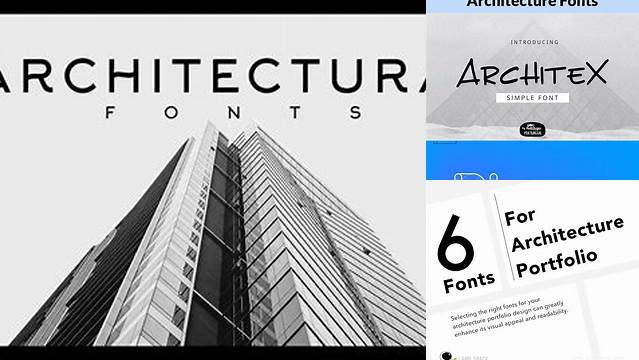
Best Architecture Fonts For Stunning Portfolios
Hey there, design enthusiasts! Let's dive into the fascinating world of architecture fonts for portfolio! Whether you're an aspiring architect, a seasoned professional, or a design student, the fonts you choose for your portfolio can make a huge difference. They're not just about readability; they're about conveying your style, your vision, and your attention to detail. Think of your portfolio as a digital or physical gallery of your work, and the typography as the frame that complements and enhances your masterpieces. This guide will walk you through the best fonts to use, how to use them effectively, and some cool tips to make your portfolio pop. So, grab your favorite coffee, and let's get started on building a portfolio that truly stands out!
H2: Understanding the Importance of Typography in Architectural Portfolios
Alright, guys, let's talk about why typography is so darn crucial in your architectural portfolio. You've poured your heart and soul into designing incredible buildings, right? You've spent countless hours sketching, modeling, and refining your concepts. But all that hard work can be undermined if your portfolio presentation is clunky or confusing. That's where typography swoops in to save the day! Firstly, architecture fonts for portfolio directly impacts readability. Imagine trying to decipher tiny, illegible text – ugh, it's a nightmare! Clear and legible fonts make it easy for potential clients or employers to understand your project descriptions, technical specifications, and any other accompanying text. Nobody wants to squint, zoom in, or give up before they even get the full picture of your work. Secondly, font choices reflect your personality and design sensibility. A clean, modern sans-serif font can convey a sense of professionalism and innovation, perfect for contemporary designs. Conversely, a classic serif font might be ideal for projects rooted in traditional architecture. Your font selection is a subtle yet powerful way to express your design philosophy and set the tone for your entire portfolio. Think of it like this: your font is the voice of your design. Is it bold and confident? Minimalist and understated? Playful and experimental? The font you choose will shape how your audience perceives your work. Furthermore, architecture fonts for portfolio help to create visual hierarchy. Using different font sizes, weights, and styles is a super effective way to guide the reader's eye. You can use larger, bolder fonts for headings and project titles to draw attention to the most important information. Subheadings can be smaller but still prominent, and body text can be a standard size for easy reading. This visual organization helps your audience navigate your portfolio and understand the relationships between different elements. It's like creating a roadmap for your design. Ultimately, the right typography elevates your portfolio from good to exceptional. It shows that you pay attention to every detail, from the grand design scheme down to the smallest font choice. It demonstrates your professionalism, your creativity, and your ability to communicate your ideas effectively. So, don't underestimate the power of good typography – it's a game-changer!
H3: The Impact of Font Choice on First Impressions
Okay, so you've got your amazing architectural designs ready to go. Now, let's consider the power of first impressions, and how architecture fonts for portfolio plays a vital role in shaping them. Your portfolio is often the first point of contact between you and potential clients, employers, or collaborators. Within seconds, they'll start forming judgments based on what they see. The font you choose is one of the first things they'll encounter, subtly influencing their initial perception of your work and your overall approach to design. If you opt for a font that's difficult to read, cluttered, or simply doesn't fit with your style, you risk creating a negative first impression. It can signal that you don't pay attention to detail, or that you're not familiar with basic design principles. This can turn off potential clients even before they've had a chance to fully appreciate your work. On the other hand, if you choose a font that is well-suited to your projects, easy to read, and visually appealing, you're already off to a fantastic start. A clean, modern sans-serif font, for instance, can project a sense of professionalism and forward-thinking design, while a classic serif font can add a touch of elegance and expertise. These font choices subtly communicate your personality and your design preferences. Moreover, architecture fonts for portfolio creates a sense of cohesiveness and professionalism. When your typography is consistent throughout your portfolio, it shows that you've considered every element. This attention to detail reflects positively on your ability to design and execute architectural projects. Consistency is important because it reinforces your brand and your individual style, making your portfolio more memorable. It is also very important to take into consideration the context of each architecture project you display. If you're showcasing contemporary designs, consider using a sleek and minimalistic font. This choice will complement the overall aesthetics of your projects. For projects that have a more traditional or classical feel, a serif font might be more appropriate. This approach helps to create a unified and pleasing visual experience. The font you pick should align with the style of your projects. In a nutshell, the typography you use will affect a visitor's first impression of your portfolio. It influences their perception of your brand, your professionalism, and your design sensibilities. This makes the decision of which architecture fonts for portfolio to use, critical to your success.
H2: Essential Font Types for Architectural Portfolios
Let's get down to the nitty-gritty and explore the different font types that are perfect for your architectural portfolio! Knowing the strengths of each font category will help you make informed choices and create a portfolio that reflects your design style. We'll cover the most common and useful font families for architects – each with its own personality and flair. We'll also talk about how you should use each of them in different design situations. This will help you achieve the best results with your architecture fonts for portfolio.
H3: Serif Fonts: Classic Elegance and Authority
If you're aiming for a sophisticated and timeless look, serif fonts are your go-to choice. Architecture fonts for portfolio in this category have small strokes, or serifs, at the ends of each letter. Think of them as tiny decorative feet. These fonts bring a sense of tradition, refinement, and credibility to your portfolio. They're excellent for project descriptions, body text, and any copy where you want to create a sense of formality. Common examples include Times New Roman, Garamond, and Georgia. These fonts have been used for centuries and are well-respected. Their elegance and authority are a great asset when you want to communicate professionalism and experience. Serif fonts are great for architectural projects that are rooted in tradition or classic design. For example, if you're showcasing a historical restoration project or a neoclassical design, a serif font will be a perfect complement. They also work well for portfolios that focus on a sense of trust and long-term sustainability. A classic serif font immediately instills confidence. Keep in mind, though, that not all serif fonts are created equal. Some can feel a bit dated, while others are more modern and versatile. To give an example, a modern serif font like Georgia has a higher x-height (the height of the lowercase letters), making it easier to read on screens. This makes it a good choice for your digital portfolio. When choosing a serif font, it's important to consider the context of your projects and the overall aesthetic you're trying to achieve. Are you going for a vintage vibe? A more formal, academic approach? Selecting the right serif font will depend on this. In terms of usage, it's generally best to use serif fonts for longer blocks of text. The serifs help guide the reader's eye across the page, making the text easier to read. However, you can also use them for headings or project titles. But it's important to keep this to a minimum, as serif fonts can be a little less impactful when displayed in large sizes. Serif fonts are an important part of your architecture fonts for portfolio choices, so using them correctly will help enhance your portfolio.
H3: Sans-Serif Fonts: Modern and Minimalist Appeal
For those who want a clean, modern, and minimalist aesthetic, architecture fonts for portfolio in the sans-serif category are the ideal choice. These fonts lack the small decorative strokes found in serif fonts, resulting in a streamlined, contemporary appearance. They're perfect for conveying a sense of innovation, efficiency, and professionalism. Common examples of sans-serif fonts include Helvetica, Arial, and Open Sans. Their clean lines and straightforward design make them incredibly versatile. They work well in a variety of design contexts, from contemporary residential projects to high-tech commercial spaces. They are known for being extremely legible, making them a great option for headings, subheadings, and any text you want to stand out. Sans-serif fonts are particularly well-suited for projects that embrace a modern design philosophy. If you specialize in sleek, minimalist architecture, or if your portfolio is primarily digital, a sans-serif font will complement your design style beautifully. They also work well for projects that involve a lot of technical information or complex diagrams, where clarity is key. When choosing a sans-serif font, consider its weight and style. Lighter weights, like thin or light, can create a delicate and airy feel, while bolder weights, like bold or black, can make your text stand out. The style of the font can also impact the feel of your portfolio. Geometric sans-serif fonts, such as Futura, have a clean, geometric look. These are great for projects that embrace a high-tech or futuristic approach. On the other hand, humanist sans-serif fonts, like Open Sans, have a more organic, friendly feel. These are well-suited for projects that focus on sustainable design or human-centered architecture. In terms of application, sans-serif fonts are super versatile. They can be used for headlines, subheadings, and body text. They are especially effective for digital presentations. Their high readability makes them ideal for portfolios viewed on a variety of screens. Sans-serif fonts are a vital component of your architecture fonts for portfolio. Choosing and implementing them can help enhance the overall look of your portfolio.
H3: Display Fonts: Adding Personality and Flair
Okay, so you want to inject some personality and creative flair into your architectural portfolio? Then, display fonts are your secret weapon! Display fonts are designed to grab attention. These architecture fonts for portfolio are typically used for headings, titles, or short bursts of text. They are not designed for long-form reading. They come in a wide range of styles. You can find anything from elegant scripts to bold, geometric shapes. The key here is to choose a display font that reflects your style and the personality of your projects. These are perfect for creating a unique visual identity. They add that extra